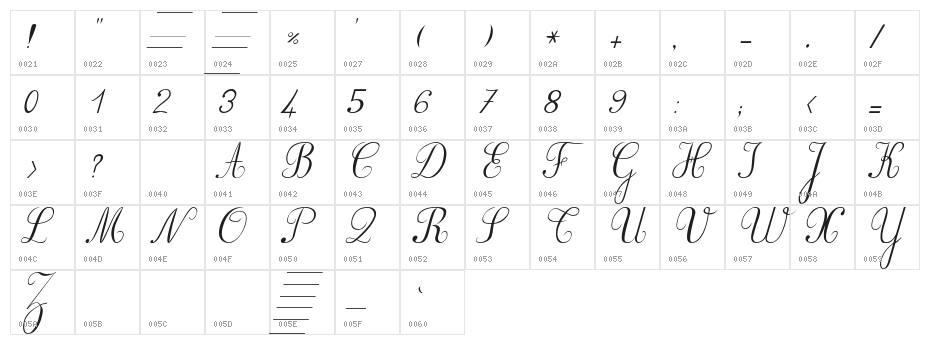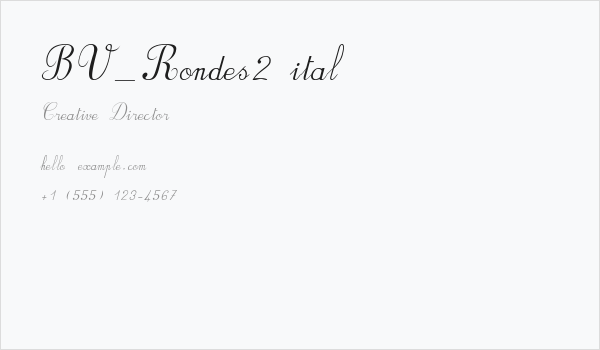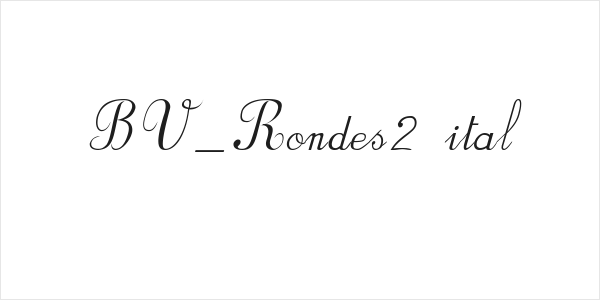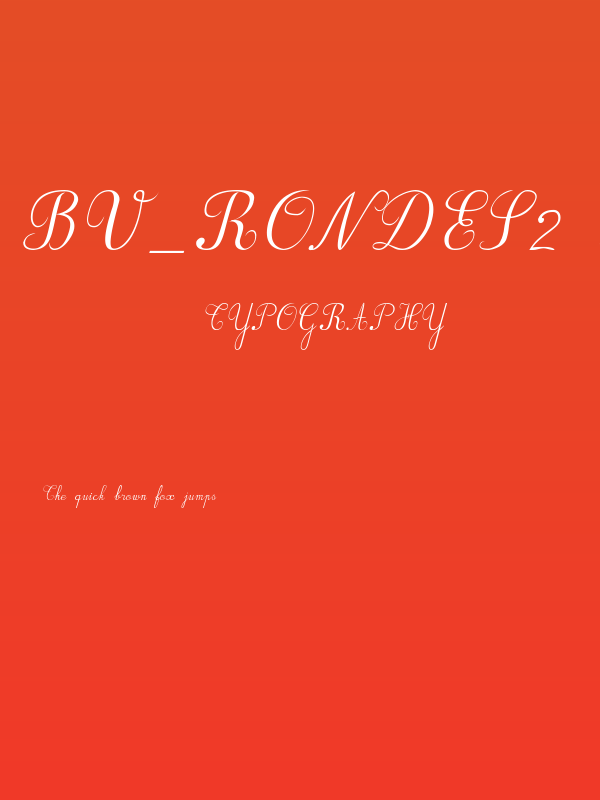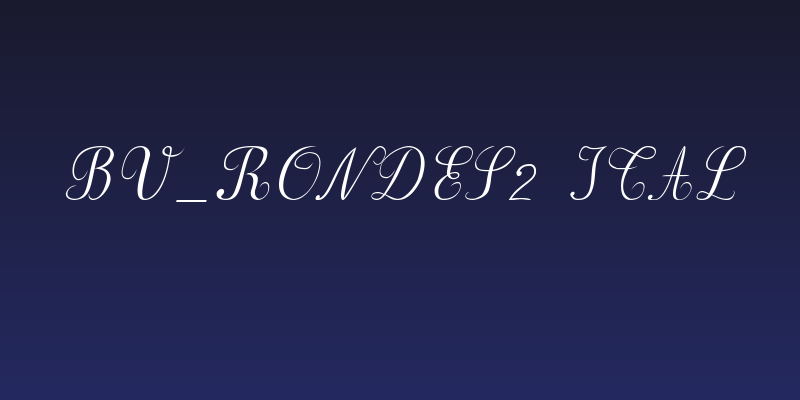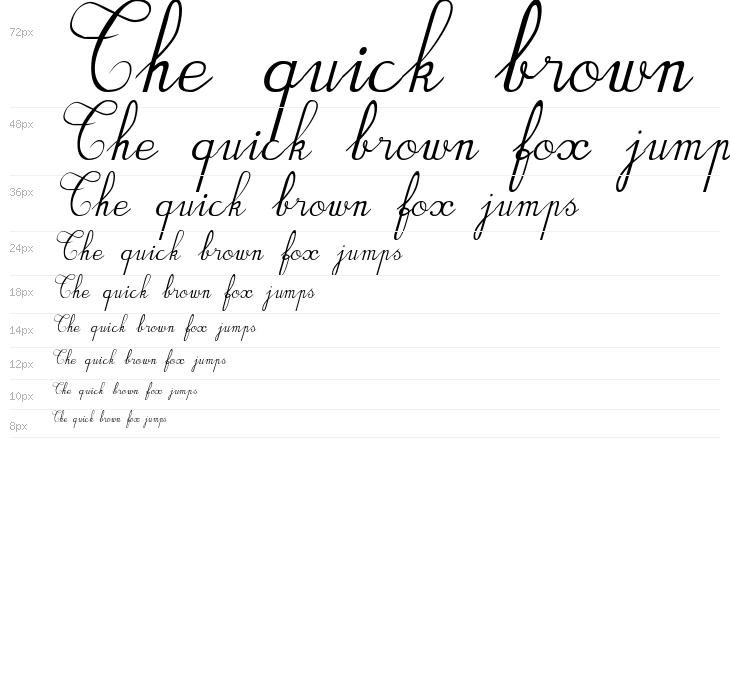
BV_Rondes2 ital Font
BV_Rondes2 ital Description
This elegant script font features a flowing, cursive style with a refined and sophisticated appearance. The uppercase letters are characterized by graceful loops and swirls, giving them a sense of movement and fluidity. The lowercase letters maintain a consistent slant, enhancing the script's cohesive look. Numbers and special characters are designed with the same attention to detail, ensuring uniformity across all glyphs. The font's delicate strokes and high contrast between thick and thin lines add to its elegance, making it suitable for formal and decorative purposes.
| Overall Style | Elegant, Decorative |
| Proposed Projects | Ideal for wedding invitations, elegant branding, formal event programs, and decorative signage. |